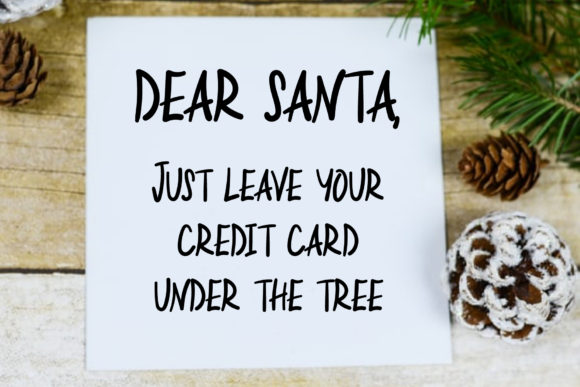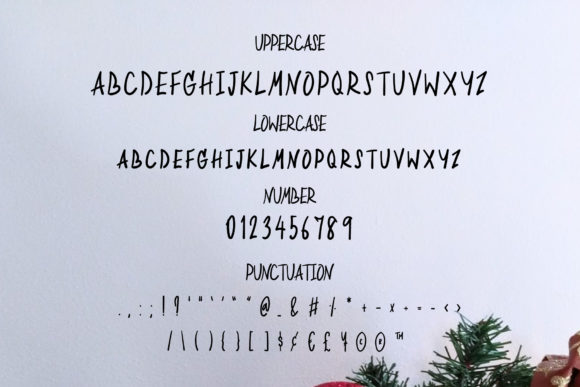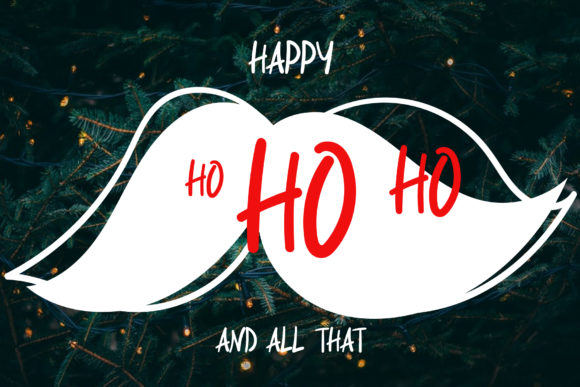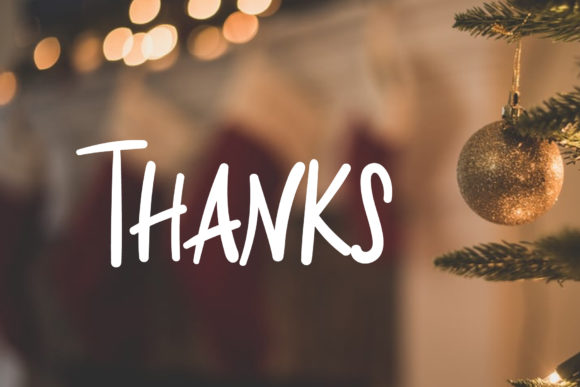
Santa Font
About Santa Font
Santa is a charming and whimsical handwritten font that adds a playful touch to any design. With its casual and quirky style, this font brings a sense of joy and uniqueness to your projects. Whether you’re creating greeting cards, posters, logos, or other designs, Santa is sure to make a statement.
The simplicity of Santa’s letterforms gives it a relaxed and approachable feel. Each letter has its own playful personality, with slight variations in stroke width and styling. The irregularities in the letter shapes add to the font’s charm, making it feel hand-drawn and authentic.
With Santa, your designs will stand out and capture attention. The font’s distinctive style brings a sense of whimsy and fun, making it perfect for projects that aim to convey a lighthearted and playful atmosphere. It’s a great choice for holiday-themed designs, children’s projects, or any design that needs a touch of personality.
The versatility of Santa allows it to be used in various contexts. Its casual nature makes it suitable for informal designs, while its quirkiness adds a unique twist. Whether you’re designing for print or digital media, Santa brings a refreshing and delightful element to your creations.
Adding Santa to your projects is easy and seamless. You can confidently incorporate it into your designs, knowing that it will bring that extra flair and character. Whether it’s adding a fun headline, creating a memorable logo, or crafting a unique greeting card, Santa will infuse your designs with its whimsical charm.
In summary, Santa is a simple, casual, and quirky handwritten font that brings a playful and relaxed vibe to your designs. Its whimsical nature makes it perfect for a variety of projects, from holiday-themed designs to children’s projects and more. Add Santa to your font collection and let it bring a touch of joy and uniqueness to your creative endeavors.